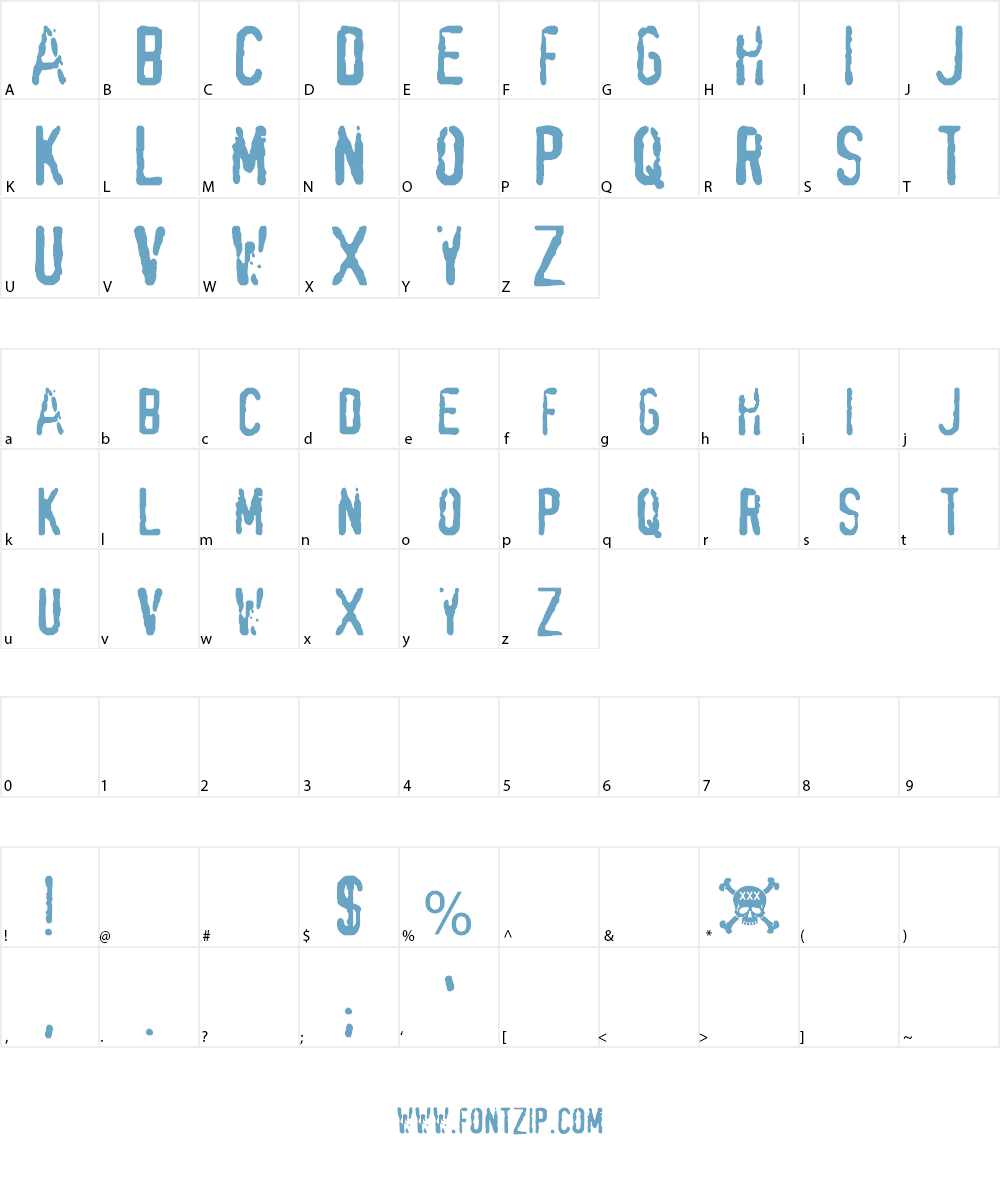
VIDEO PIRACY IT'S A CRIME !.... I have always loved the font used for the BBFC trailer on the front end of all DVD's and Blu Ray discs couldn't find it anywhere on the web so here is my version eroded and distorted in much the same way. Sorry no numbers at the moment might get around to it in later versions. Avast me hearties, yo ho!